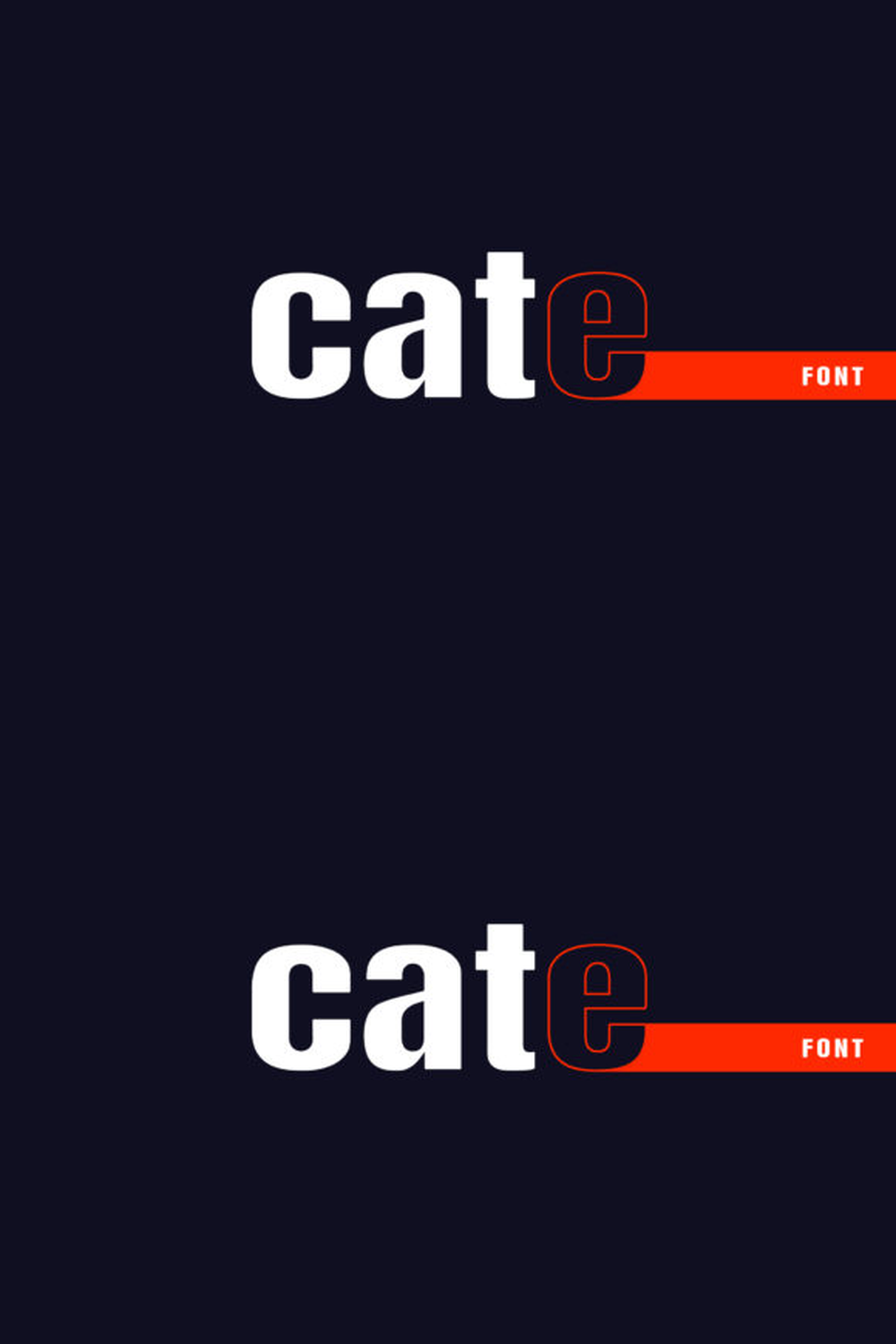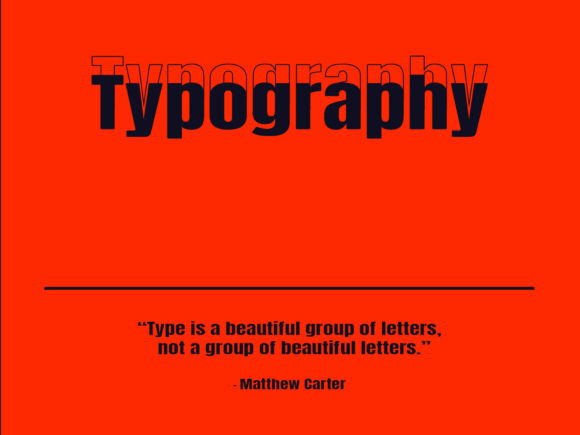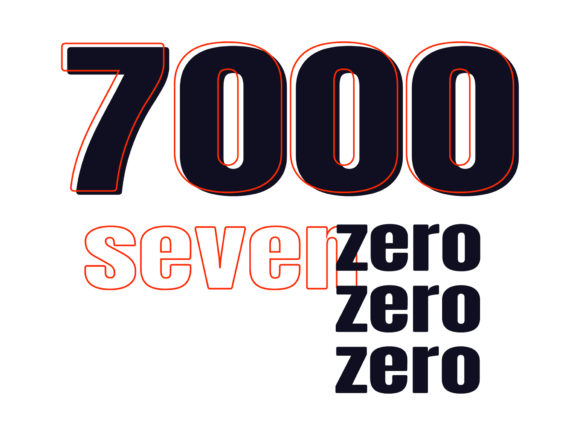
Cate Font: A Minimalist Sans Serif for Modern Design
About the Cate Font
Let us introduce you to Cate Font, where timeless design meets modern craftsmanship. Cate is a minimal and neat sans serif font. It can easily be matched to an incredibly large set of projects, so add it to your creative ideas and notice how it makes them stand out!
Cate Font Usage Examples